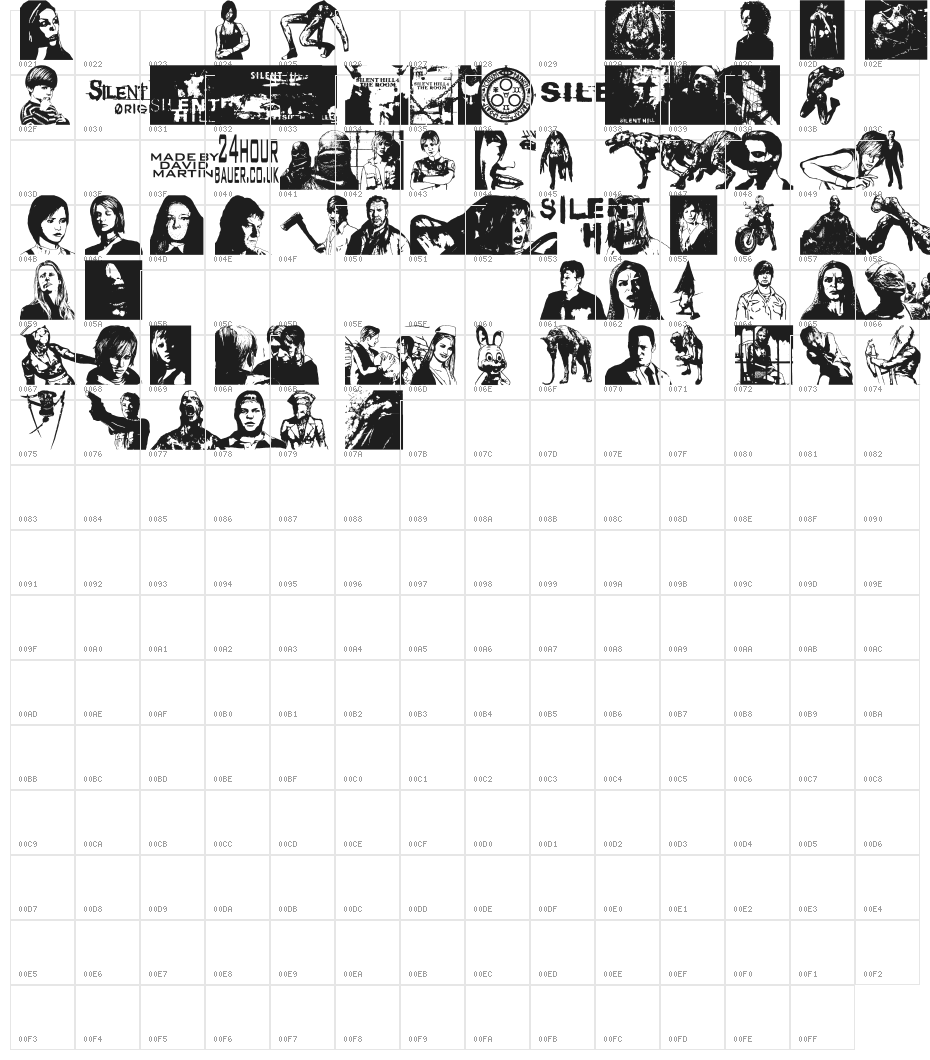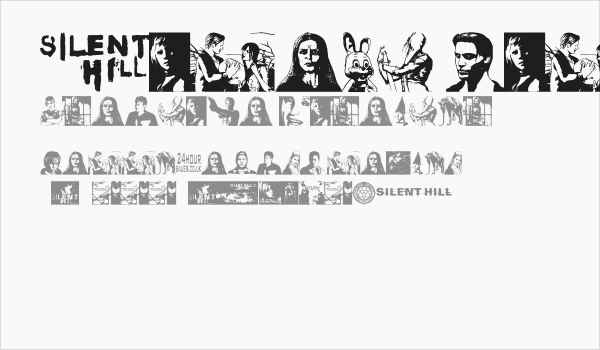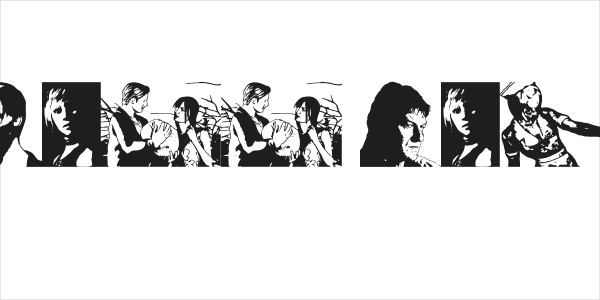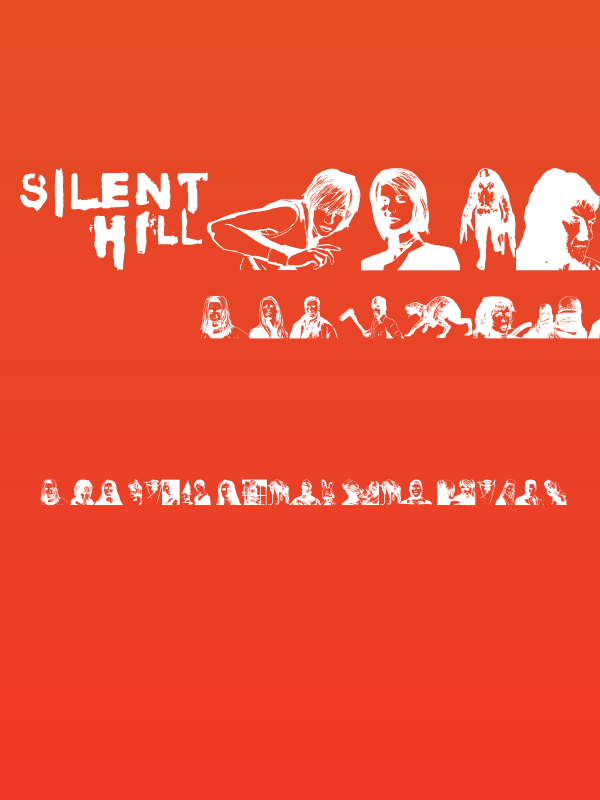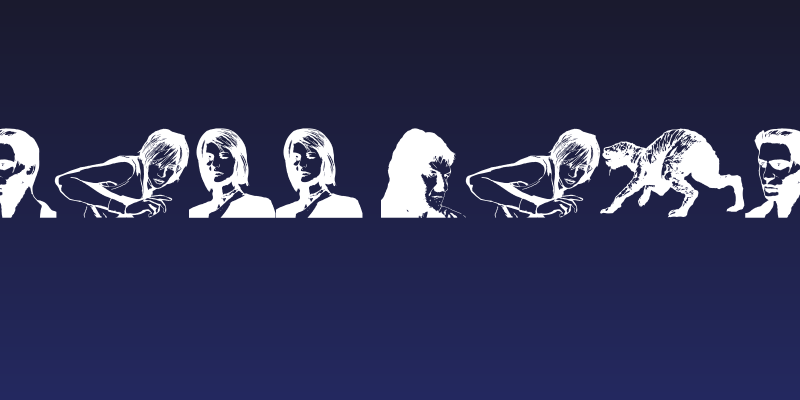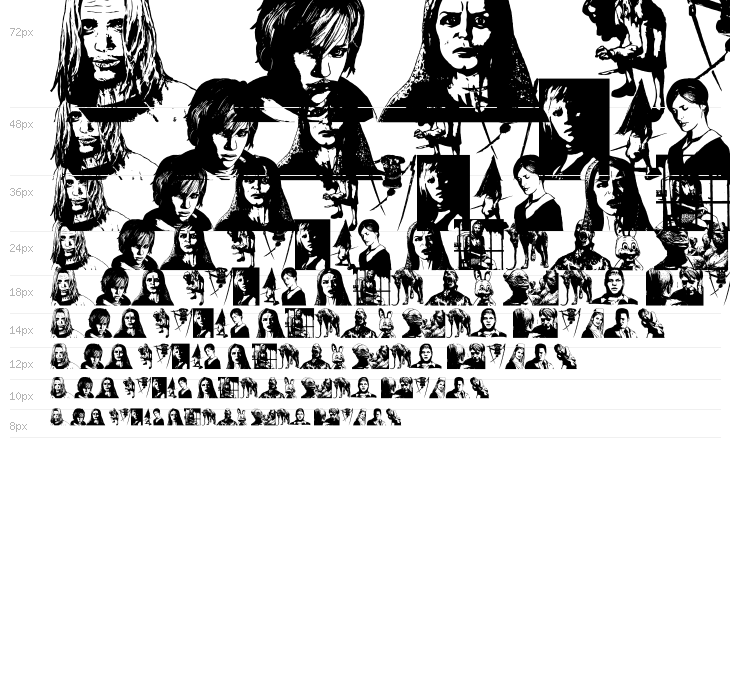
Silent Hill Nightmares Font
Silent Hill Nightmares Description
This is not a traditional font but rather a collection of highly detailed, black-and-white illustrations and logos referencing a horror video game series. Each character or glyph is represented by a unique graphic or scene, making it more of a pictorial or themed dingbat set than a usable typeface for text.
| Overall Style | Decorative, Horror, Thematic |
| Use Case | Decorative elements, Themed graphics, Not suitable for body text or headlines. |
| Proposed Projects | Posters, fan art, themed event flyers, horror game promotions, decorative elements. |